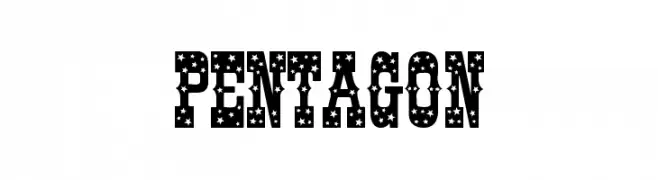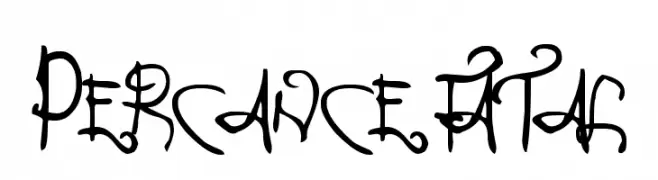
A bold, distressed font with a grunge texture and strong visual impact.
An elegant, calligraphic font with flowing, angular strokes.
A bold, star-patterned decorative font ideal for eye-catching designs.
A whimsical and decorative font with intricate, playful curves.
A bold, distressed font with a rugged, vintage appearance.
A playful, matchstick-themed decorative font ideal for creative projects.